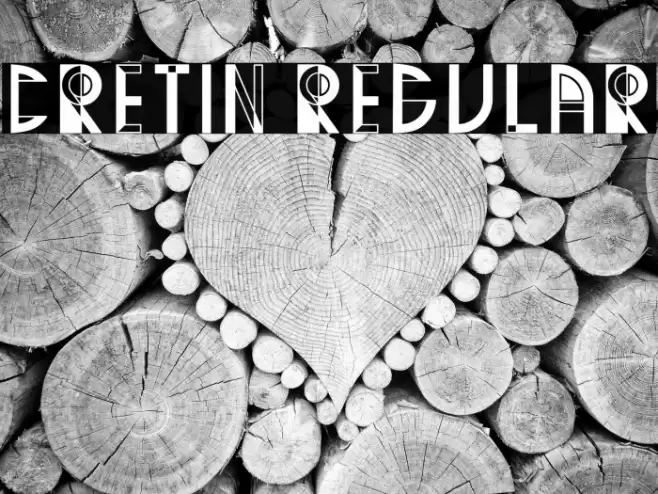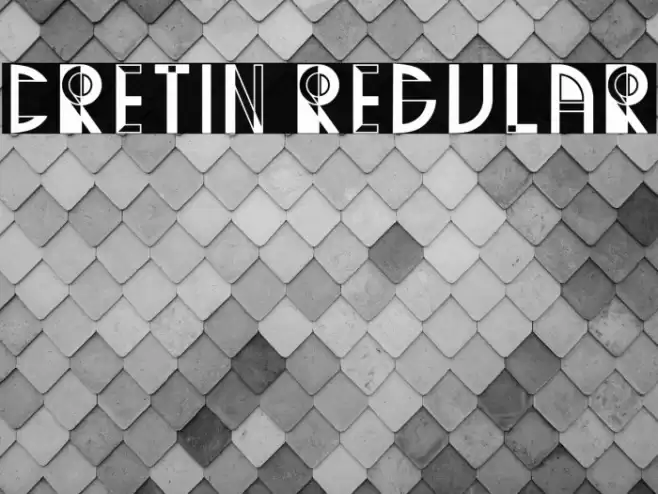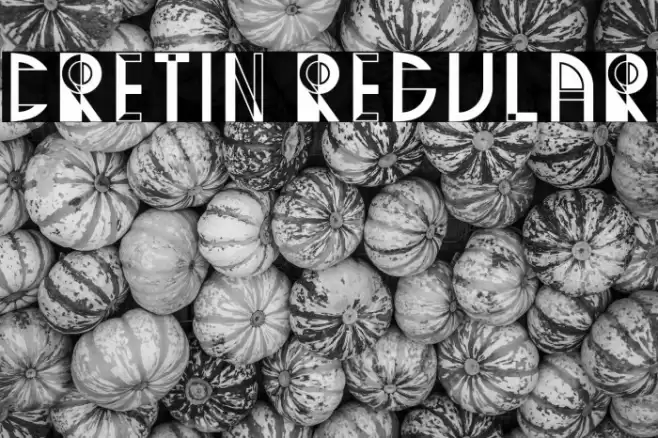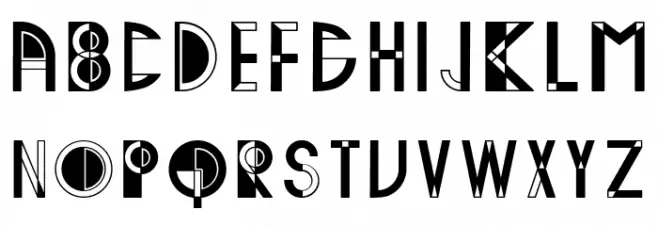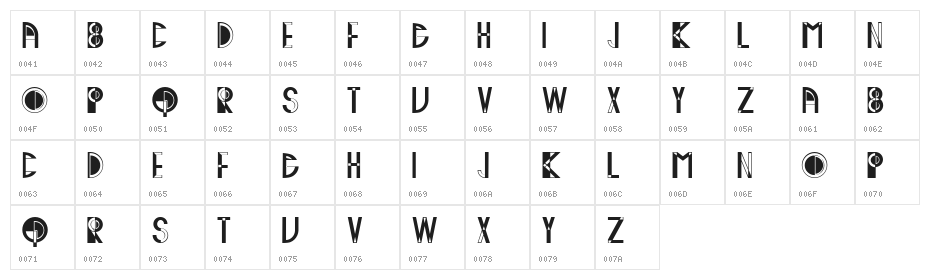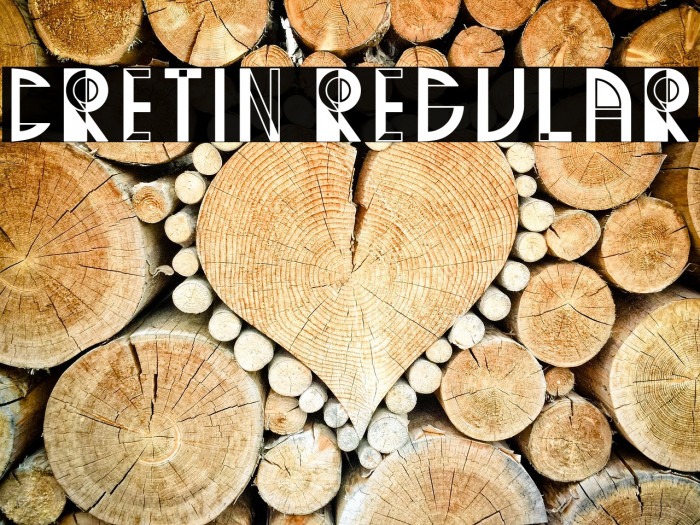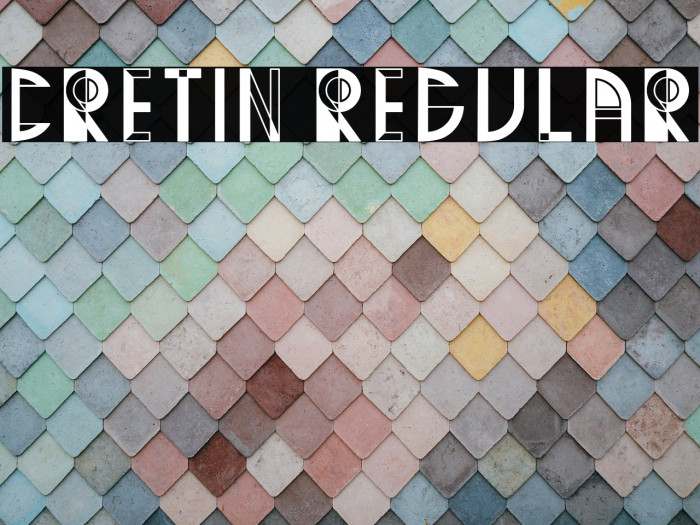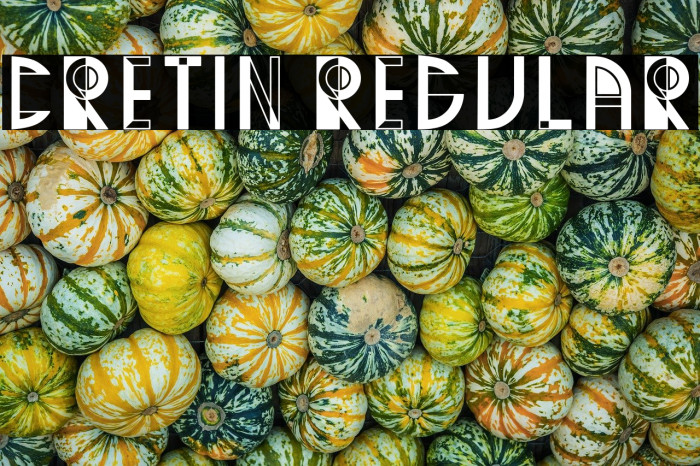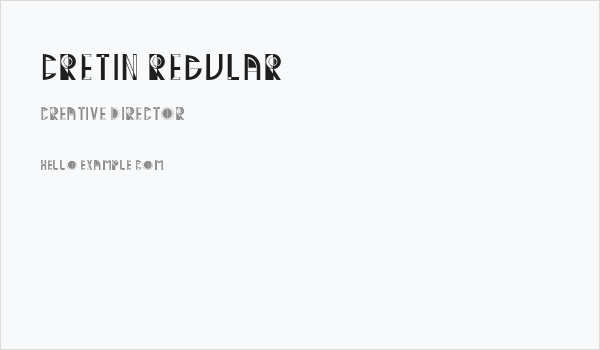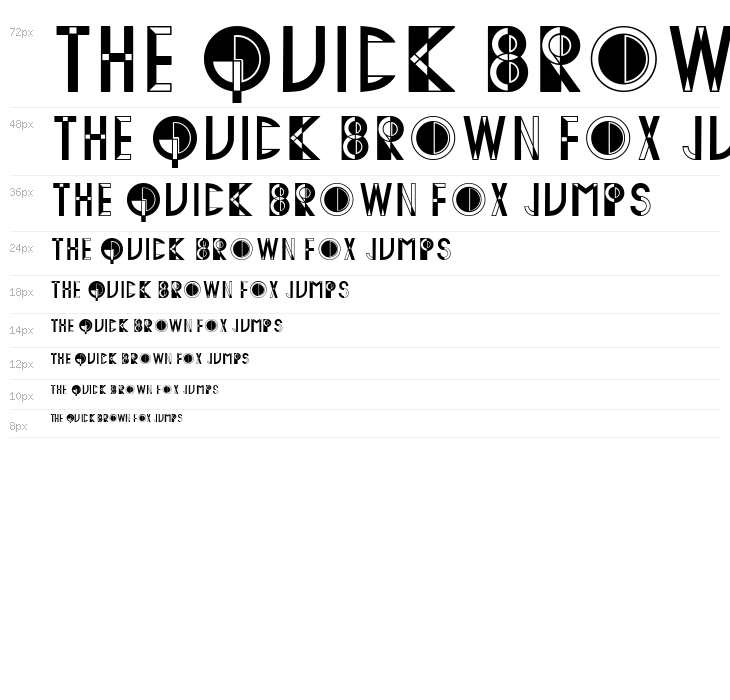
Cretin Regular Font
Cretin Regular Description
This font features a bold, geometric design with a strong emphasis on symmetry and angular shapes. Each character is crafted with a combination of solid and outlined elements, creating a striking visual contrast. The uppercase letters are particularly distinctive, with unique cutouts and lines that add a modern, artistic flair. The font's style is reminiscent of Art Deco, with a futuristic twist, making it ideal for projects that require a bold and innovative look. Its decorative nature is balanced by a clean and structured appearance, ensuring readability while maintaining a high level of visual interest.
A bold, geometric font with Art Deco influences and modern flair from Decorative fonts.
- Proposed Projects: Ideal for branding, posters, album covers, and any project needing a bold, artistic touch.